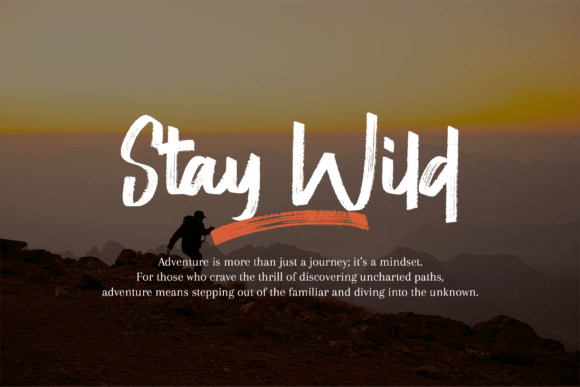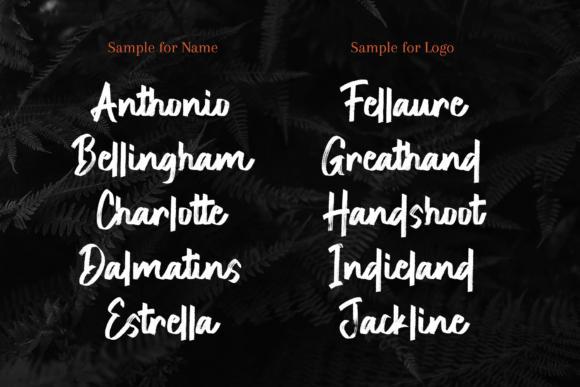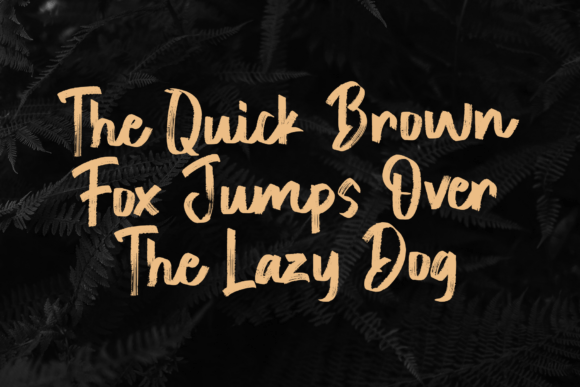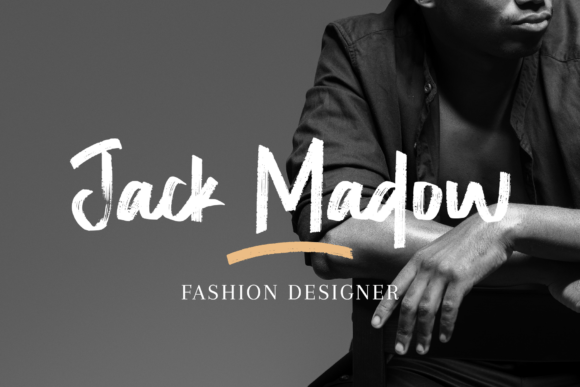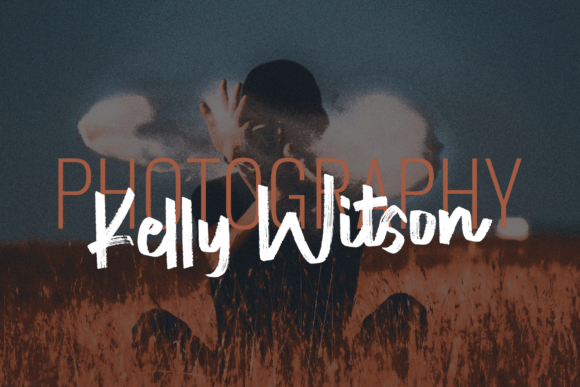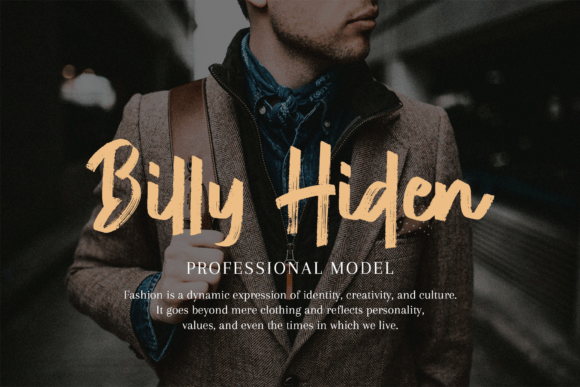
Introduction to Hideline Font
Remember the feeling of excitement when you stumble upon the perfect design resource? It’s like discovering a hidden treasure that instantly elevates your creative project. For designers, finding the right font can be a game-changer. Imagine being able to add a bold, dynamic touch to your design with a single click.
This is where Hideline Font comes in – a high-quality, bold and textured handwritten font that’s perfect for designers looking to add some personality to their work. With its natural, expressive feel and organic, handcrafted appearance, Hideline Font is an invaluable addition to any design toolkit. Whether you’re working on a graphic design project or creating a digital product with a transparent background, Hideline Font is sure to make a statement.
Key Features of Hideline Font
- Comes with a transparent background, making it easy to customize and integrate into various design elements.
- Supports multiple languages, making it a versatile choice for global creative projects.
- Designed to be highly legible, even at small font sizes, making it perfect for digital and print applications.
Honest Review: Hideline Font
I recently had the opportunity to work with the Hideline Font, and I must say, it’s been a game-changer for my design projects. This high-quality font is a fantastic resource for designers who need a reliable, professional-looking font for their creative projects.
- ✨ Sleek and modern design that’s perfect for contemporary projects
- ✨ Highly versatile font that works well for both digital and print designs
- ✨ Transparent background, allowing for seamless integration with other design elements
- ⚠️ Limited character set, which may not be suitable for complex projects
- ⚠️ Not ideal for projects that require a lot of bold or italic text
Overall, I’m impressed with the Hideline Font. It’s a solid addition to any designer’s toolkit, and its high-quality design makes it a great choice for a variety of creative projects. With a little creativity, you can work around its limitations and achieve professional-looking results.
The Hideline Font is a high-quality design resource perfect for creative projects that require a unique and modern touch. With a transparent background, this font can be easily integrated into various design applications.
The Hideline Font is ideal for designing logos, branding materials, and marketing collateral. Its modern and sleek design makes it perfect for creative projects that require a high-quality and professional look.
To get the most out of Hideline Font, experiment with different font styles and combinations to create unique and eye-catching designs. You can also use the font in conjunction with other design elements to add depth and visual interest to your project.